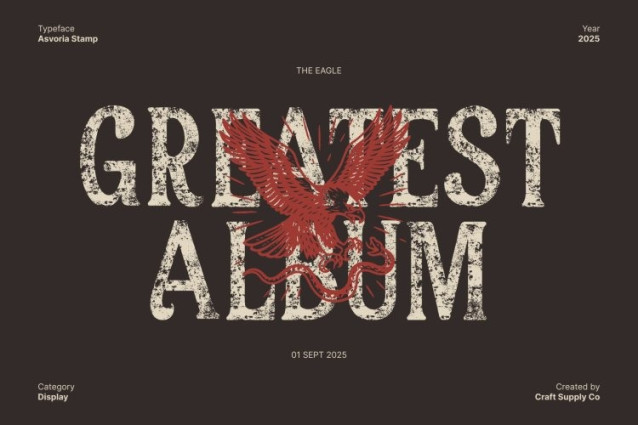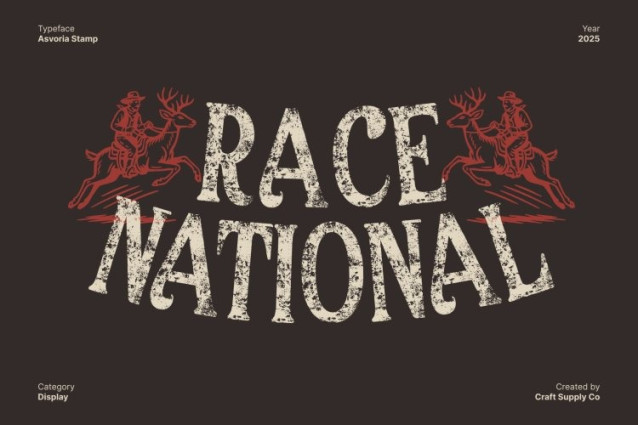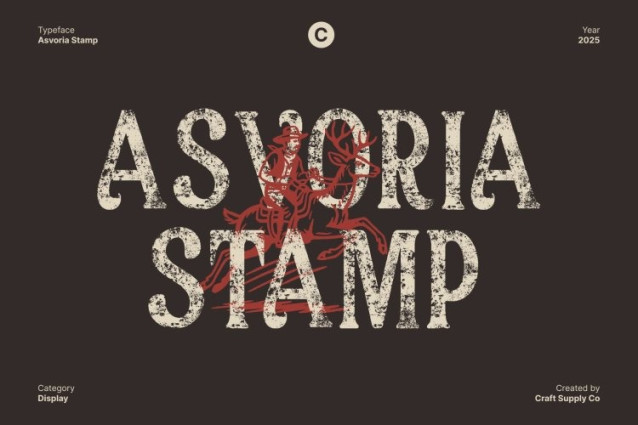
Asvoria Stamp Font
Asvoria Stamp Font is a modern serif font that blends elegant form with stylish flow, creating a sophisticated and graceful visual appeal. Its balanced proportions and refined letterforms exude a sense of confidence and beauty, making it ideal for projects that demand both modern allure and artistic refinement.
Vintage Texture for Authentic Character
The subtle stamp texture enhances this fonts charm, giving it a handcrafted, time-worn appearance that feels nostalgic yet fresh. This textured touch introduces a vintage atmosphere while preserving the sleekness of its modern sans serif structure, allowing the font to bridge eras effortlessly.
Perfect for Editorial and Creative Expression
This font excels in vintage-inspired designs, editorial spreads, and artistic posters. Its unique combination of elegance and raw texture makes it a powerful choice for designers seeking a refined yet expressive look. Whether on print or digital layouts, it captures attention with poise and personality.
A Blend of Timeless Elegance and Modern Edge
With its graceful structure and vintage finish, this font stands as a versatile display font that merges beauty with boldness. It’s the perfect option for branding, packaging, or design work that values sophistication infused with nostalgic character a true modern classic with soul.